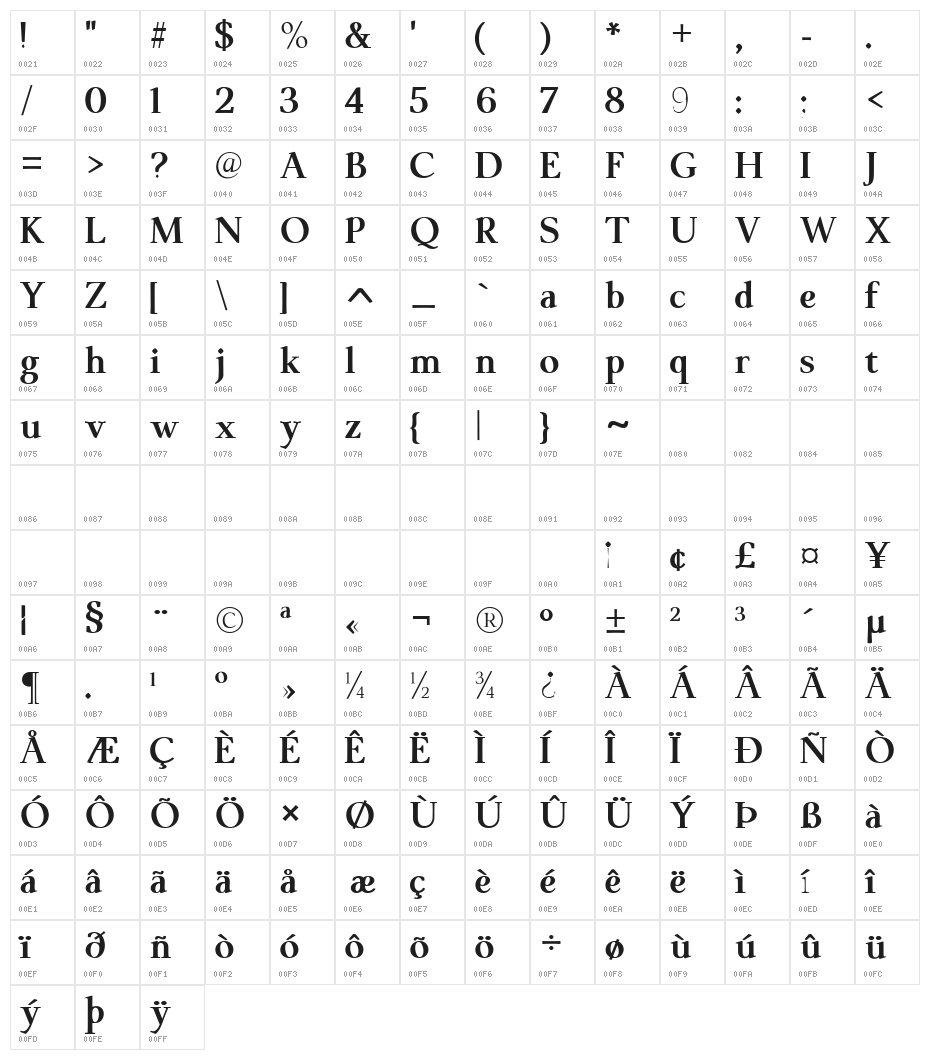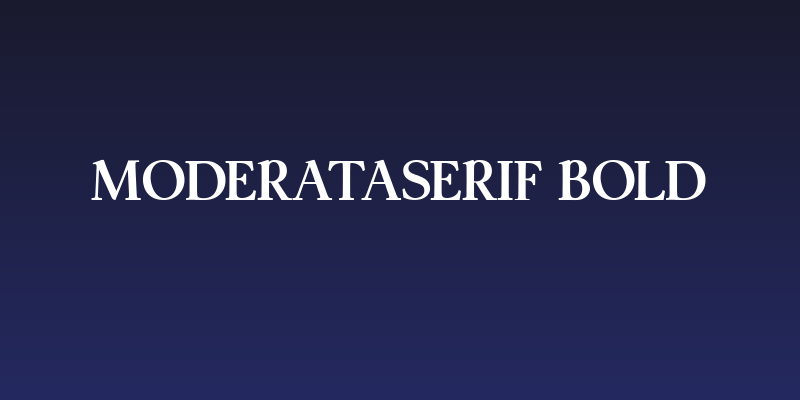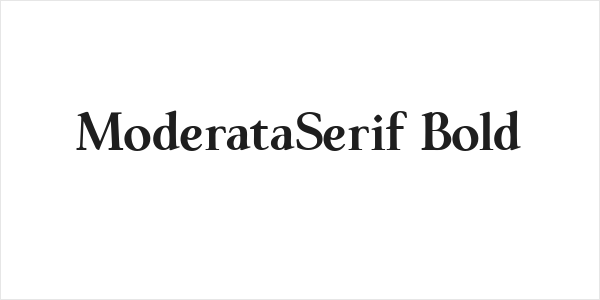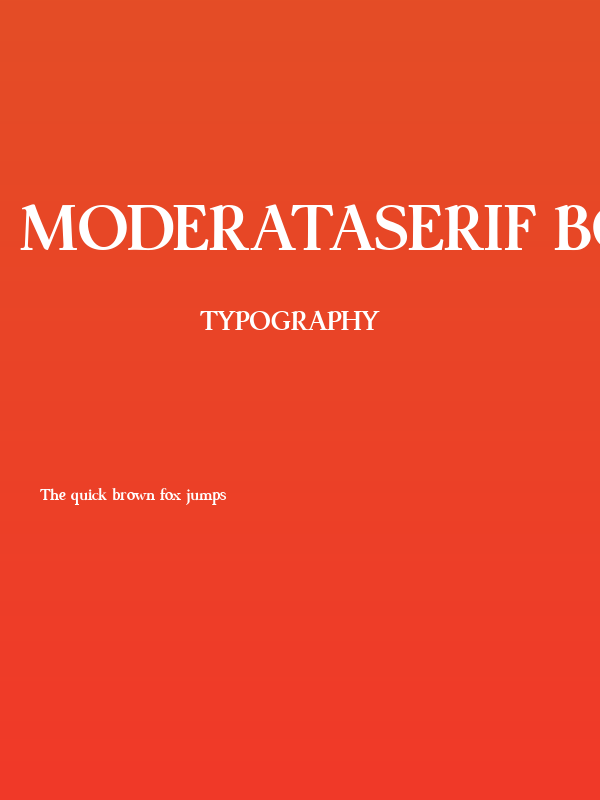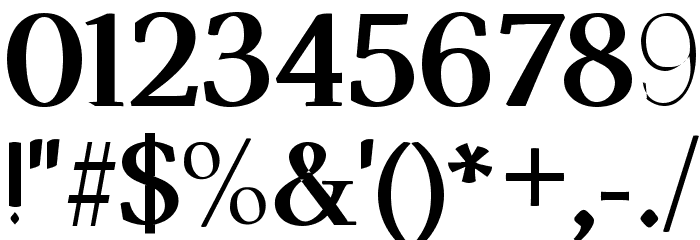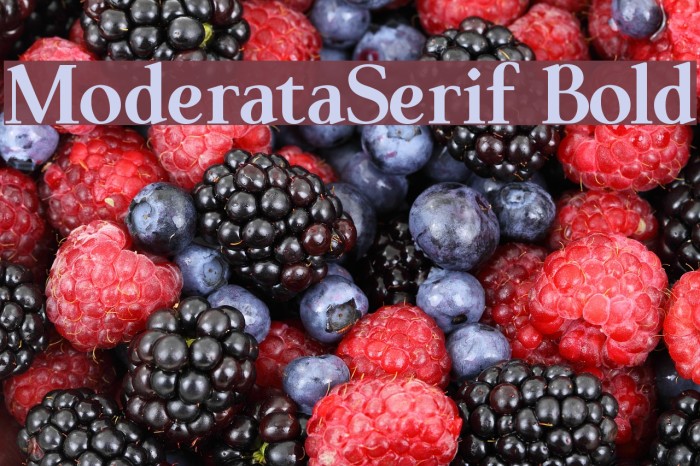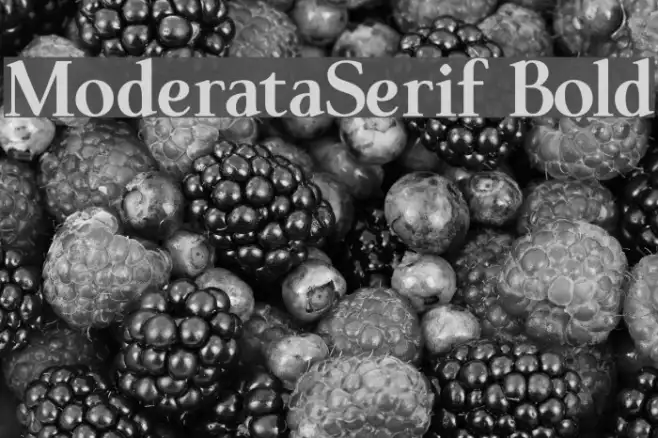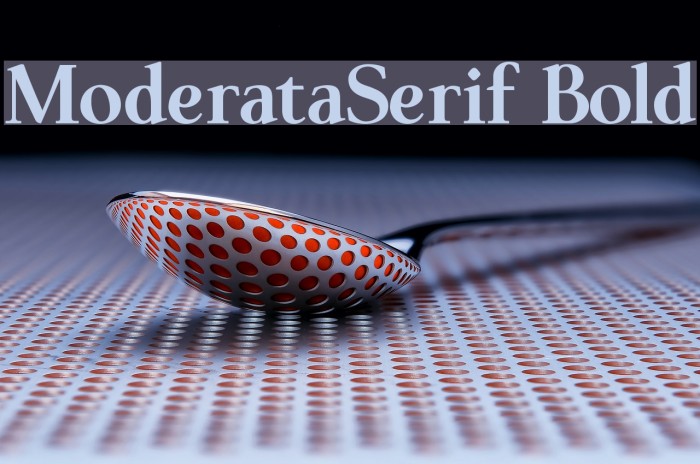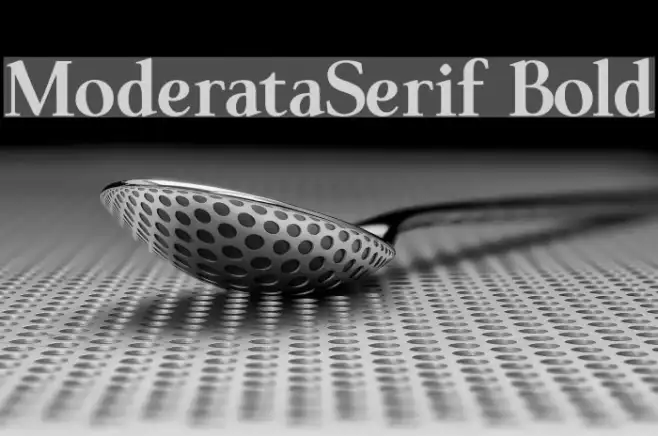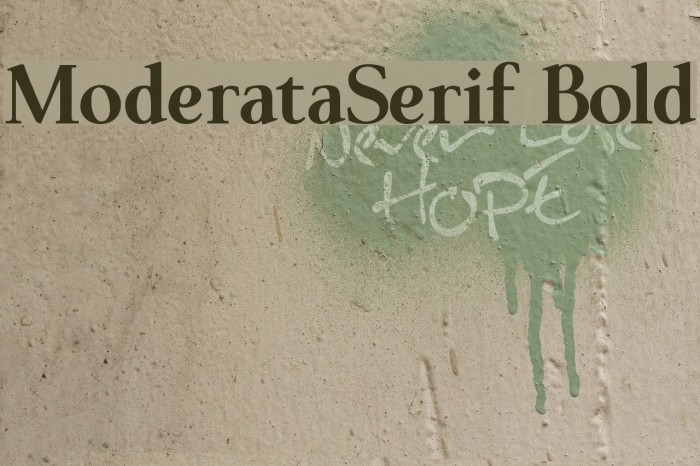
ModerataSerif Bold Font
ModerataSerif Bold Description
This typeface features a classic serif design with bold, prominent strokes that convey a sense of authority and elegance. The uppercase letters are well-proportioned, with a slight contrast between thick and thin strokes, adding a touch of sophistication. The lowercase letters maintain a consistent style, ensuring readability while retaining a traditional aesthetic. The numerals are clear and distinct, making them suitable for both display and text settings. Special characters are thoughtfully designed, complementing the overall style of the typeface. This font is versatile, suitable for a range of applications from formal documents to creative projects.
| Proposed Projects | Ideal for book covers, editorial design, branding, and formal invitations. |